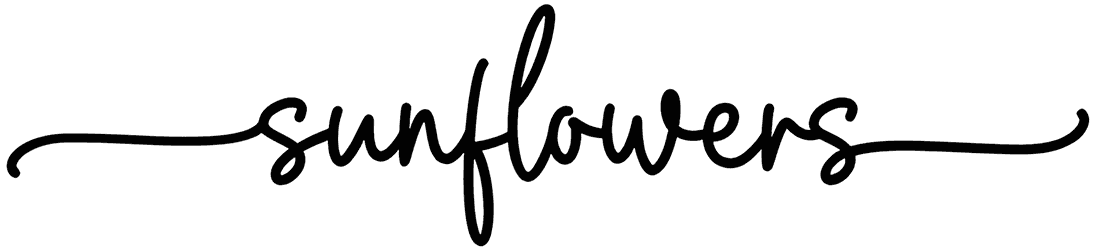
Sunflowers Font
Have you ever thought about creating a realistic design with a natural, handwriting font, but haven’t found a suitable option? Here we recommend Sunflowers, which come with a full set of cute characters, to inject fun and happiness into your work.
It might be a bit unreadable because of its connected form, but it’s not such a big deal. This wedding font will be great for birthday parties, greeting cards, book covers, personalized gifts, and advertisements.